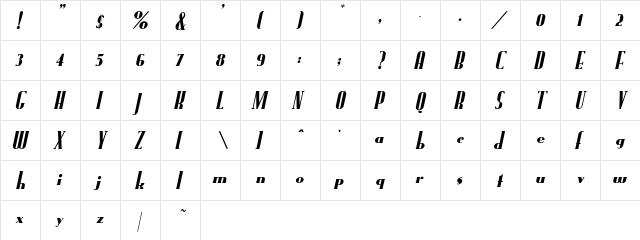
Fund-Runo Regular
Design Context for Fund-Runo Typeface
Fund-Runo has an approachable, lighthearted character — its loose, expressive forms are well-suited to children's content, casual branding, and fun-first design.
Font Pairing: Pairs well with a rounded or humanist sans for body copy, maintaining the friendly tone without relying on Fund-Runo to carry extended reading.
Pro Tip: Use Fund-Runo at larger display sizes where its expressive character can land. Pair with a clean, simple sans for body copy to maintain readability.